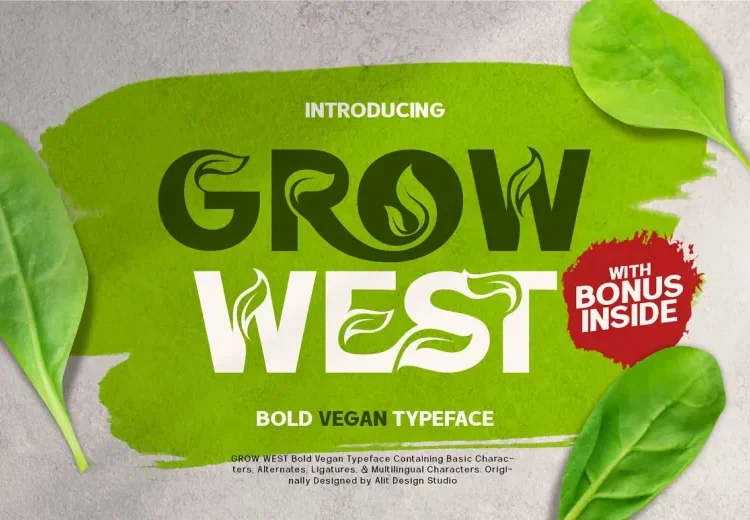
Grow West Font
Grow West is a unique and impactful typeface designed with the environment in mind. This font embodies sustainability, growth, and the beauty of our natural world, making it a perfect choice for projects that champion environmental awareness and eco-friendly initiatives. With Grow West, your message about the importance of nature and sustainability will stand out boldly and clearly.
Key Features of Grow West:
• Eco-Inspired Design: Every aspect of Grow West is crafted to reflect the principles of sustainability and environmental stewardship.
• Bold Statement: The font’s design ensures that your green message is not only seen but also felt, making a strong impact on your audience.
• Versatile Applications: Whether for environmental campaigns, eco-friendly products, or nature-themed projects, Grow West delivers a message of growth and respect for the planet.
Ideal Uses for Grow West:
• Sustainability Campaigns: Perfect for posters, banners, and digital content promoting environmental awareness.
• Eco-Friendly Branding: Ideal for companies and products that prioritize sustainability and green practices.
• Nature-Themed Projects: Enhance your designs with a font that mirrors the beauty and importance of nature.